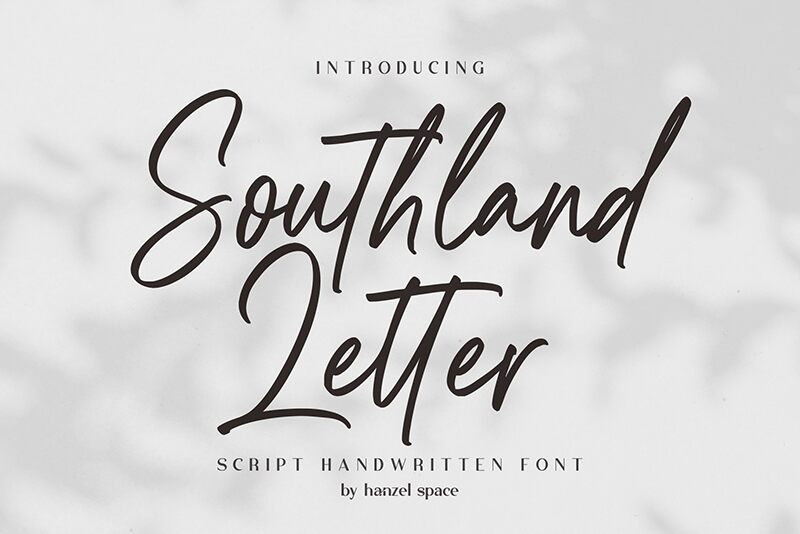
Southland Letter
Southland Letter font is a handwritten script font designed by Hanzel Space..
Introducing Southland Letter Handwritten Font.
Southland Letter Handwritten Font with contemporary, sophisticated accents. It is perfect for branding, wedding
invites, tagline, cards, maybe for label and logo
Southland Letter Handwritten Font includes Multilingual Options to make your branding globally acceptable
Features:
Standard Ligatures
Stylistic Sets
Numerals and Punctuation